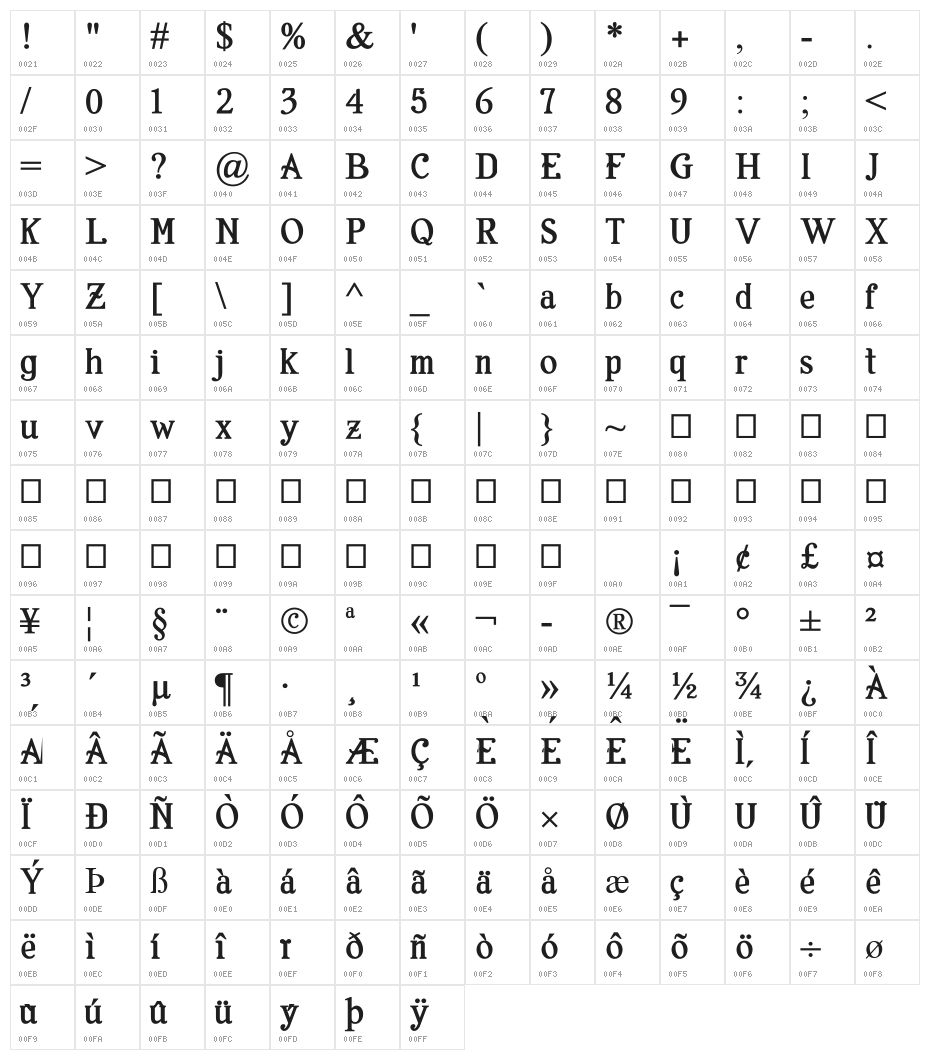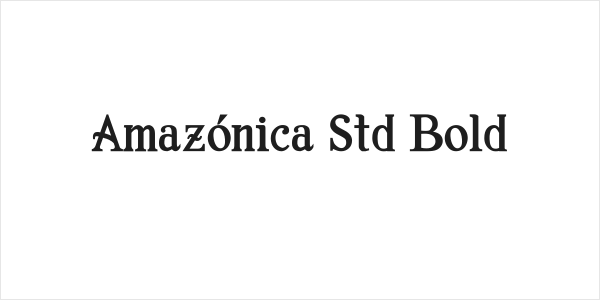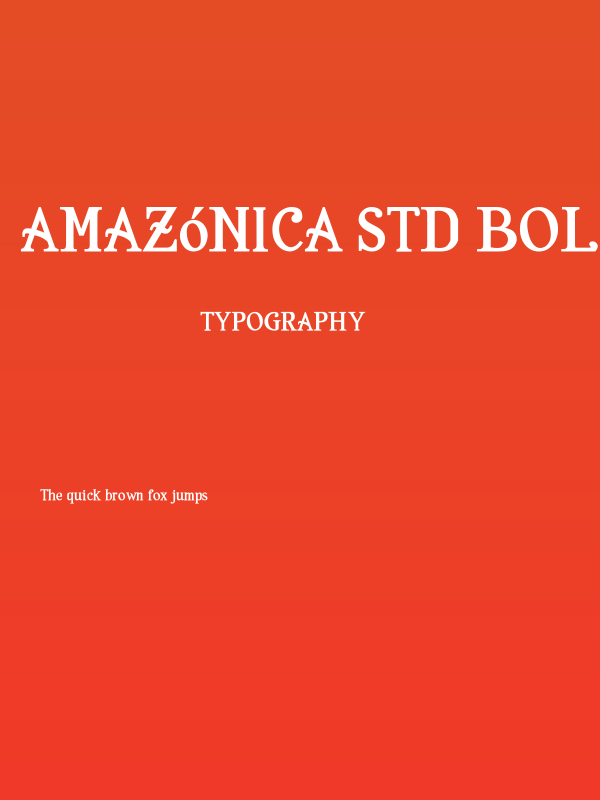
Amazónica Std Bold Font
Amazónica Std Bold Description
This font features a bold and commanding presence with its strong serif design. The characters exhibit a classic style with pronounced serifs that add a touch of elegance and tradition. The uppercase letters are particularly striking, with a robust structure that ensures readability and impact. The lowercase letters maintain a consistent style, offering a harmonious balance between the upper and lower cases. The numerals are clear and distinct, making them suitable for various applications. Special characters are well-integrated, maintaining the overall aesthetic. This font is ideal for projects that require a traditional yet bold statement.
| Use Case | Headlines, Logos, Editorial design |
| Proposed Projects | Ideal for book covers, editorial design, branding, and signage. |